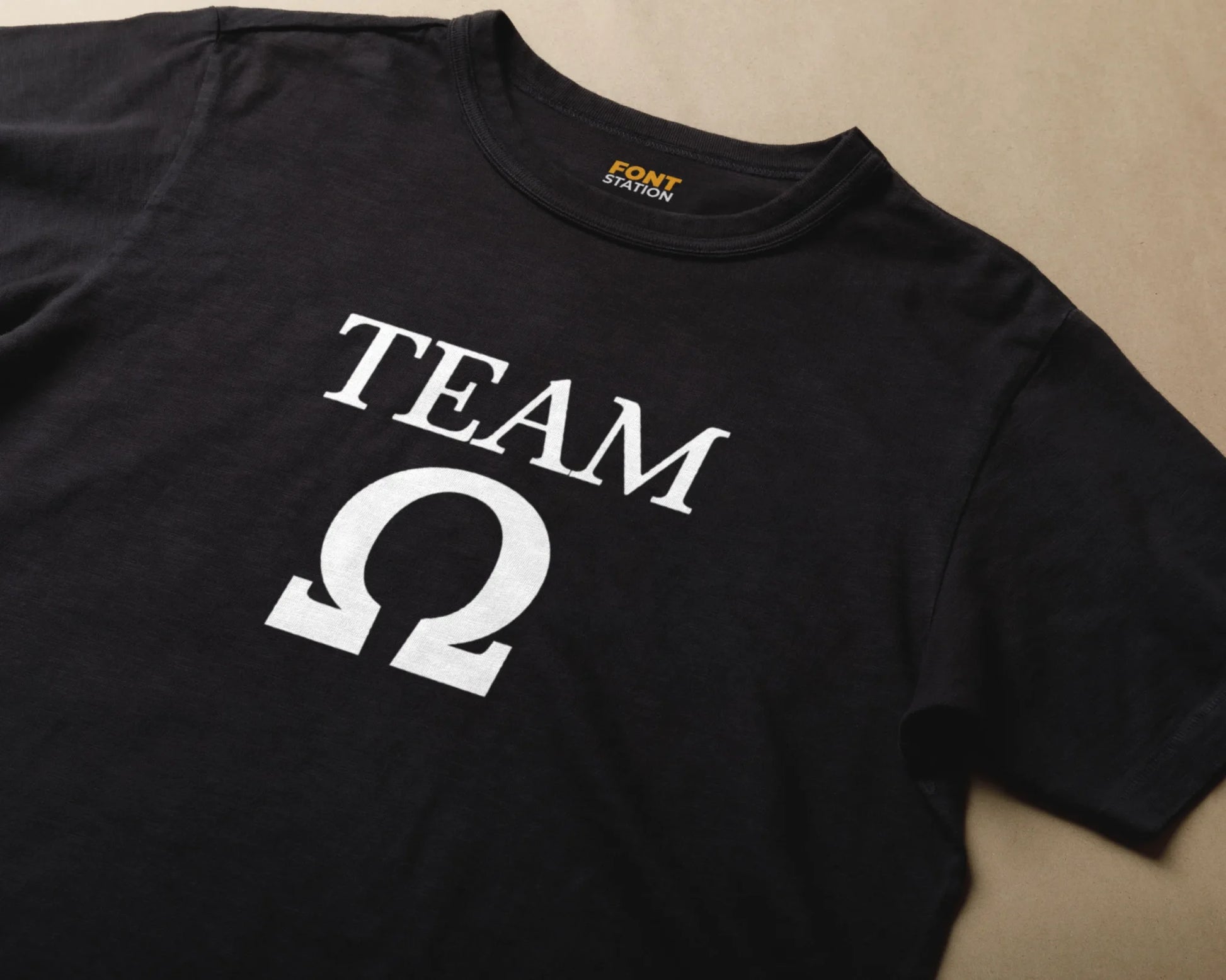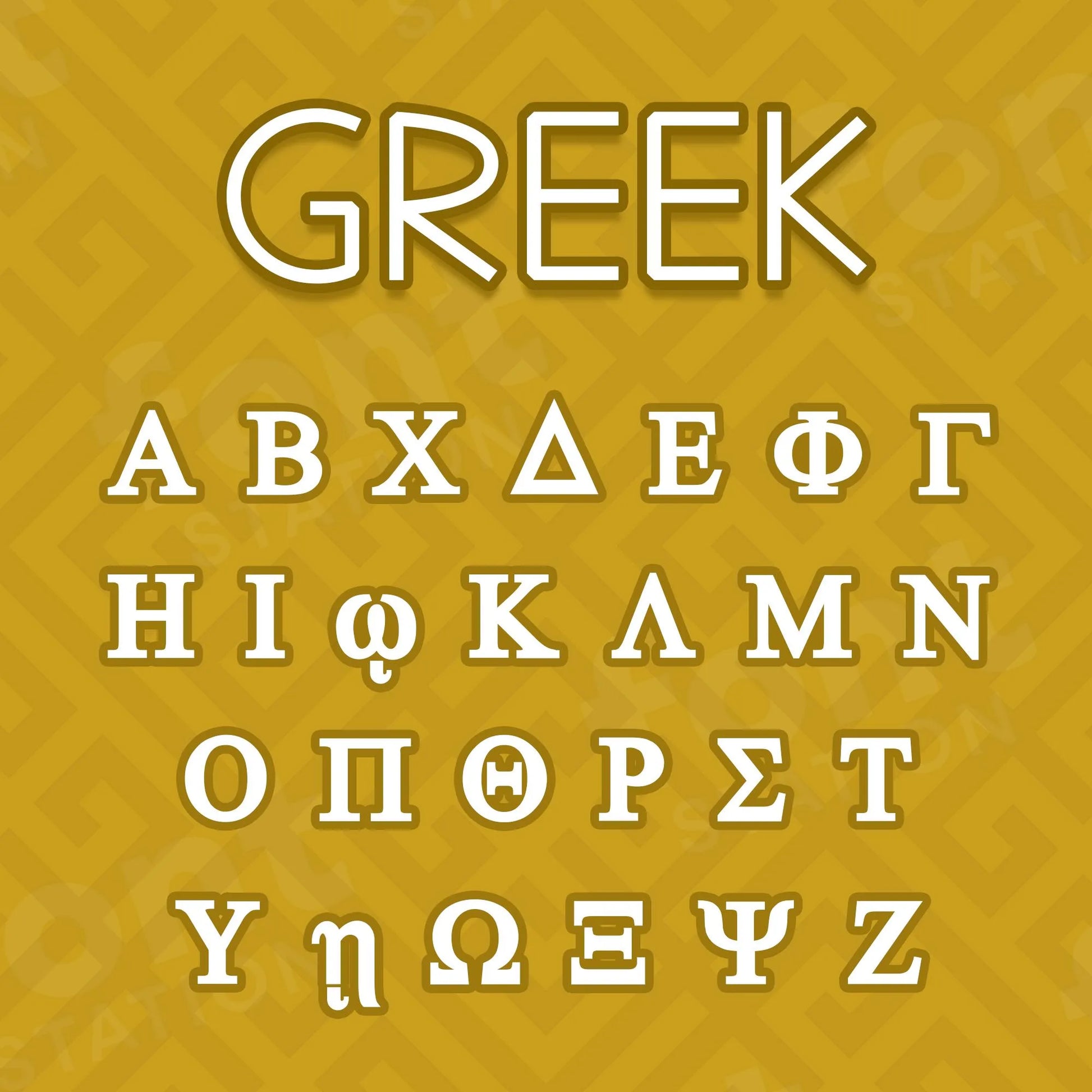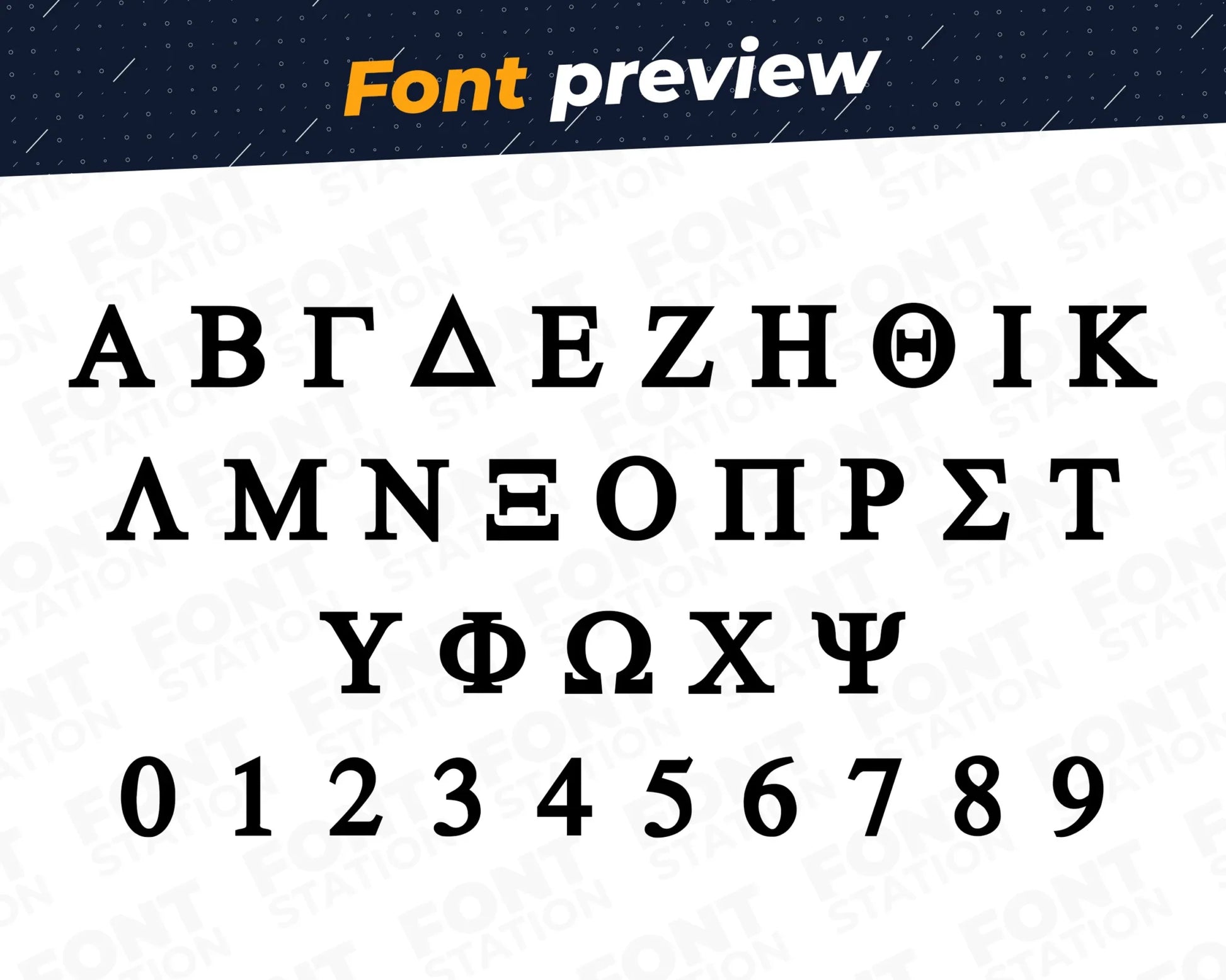
Ancient Greek Font - Hellas Symbols
Our Hellas Symbols typeface, inspired from Ancient Greek font
Grab your computer, tablet or other device and start creating right now with our Ancient Greek font letters! Our Hellas Symbols typography is inspired from the Ancient Greek Sorority and Fraternity Team font, making it ideal for various digital creations (logo, word...), sublimation, cake toppers, stickers, event decorations, and more.